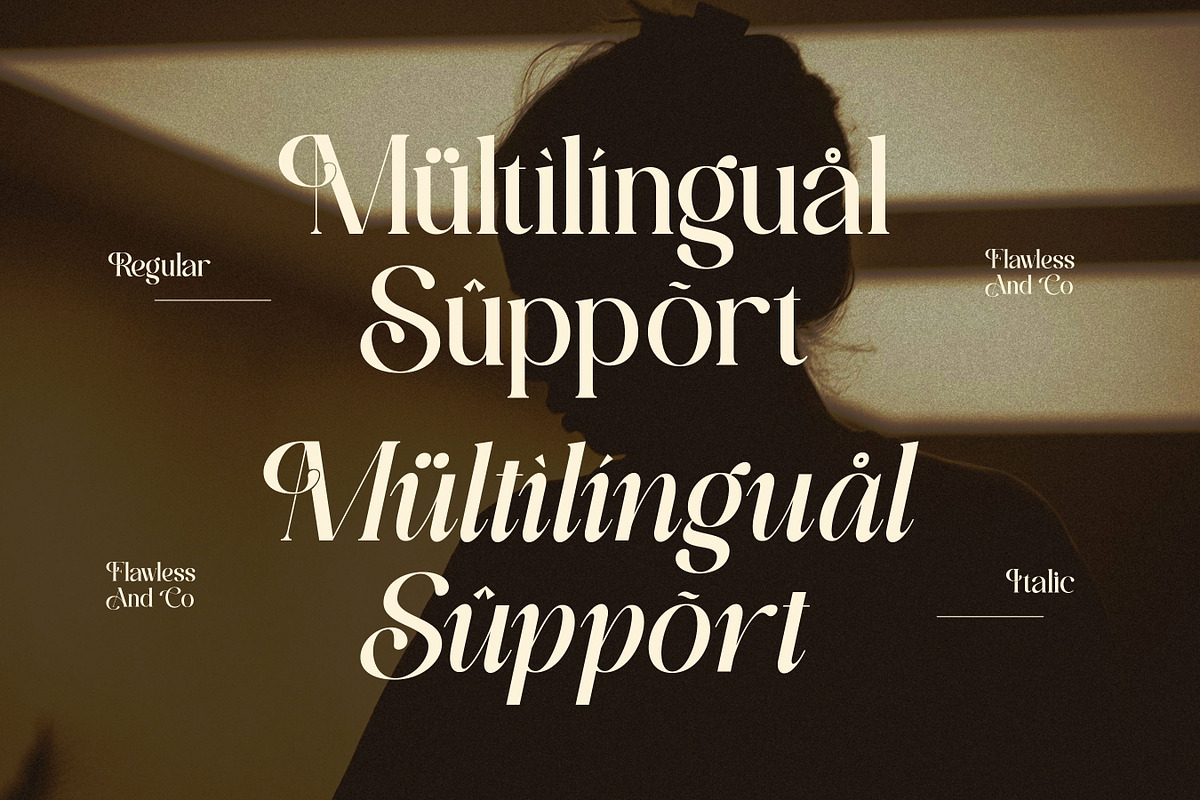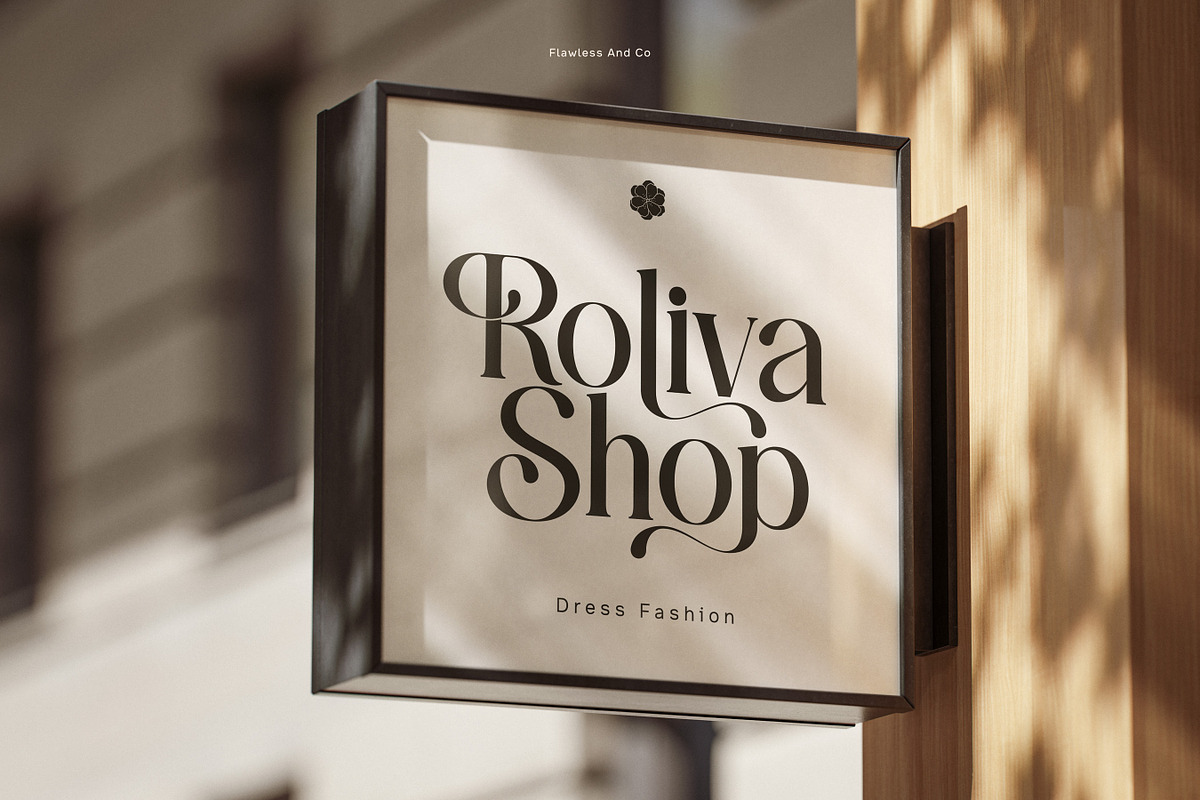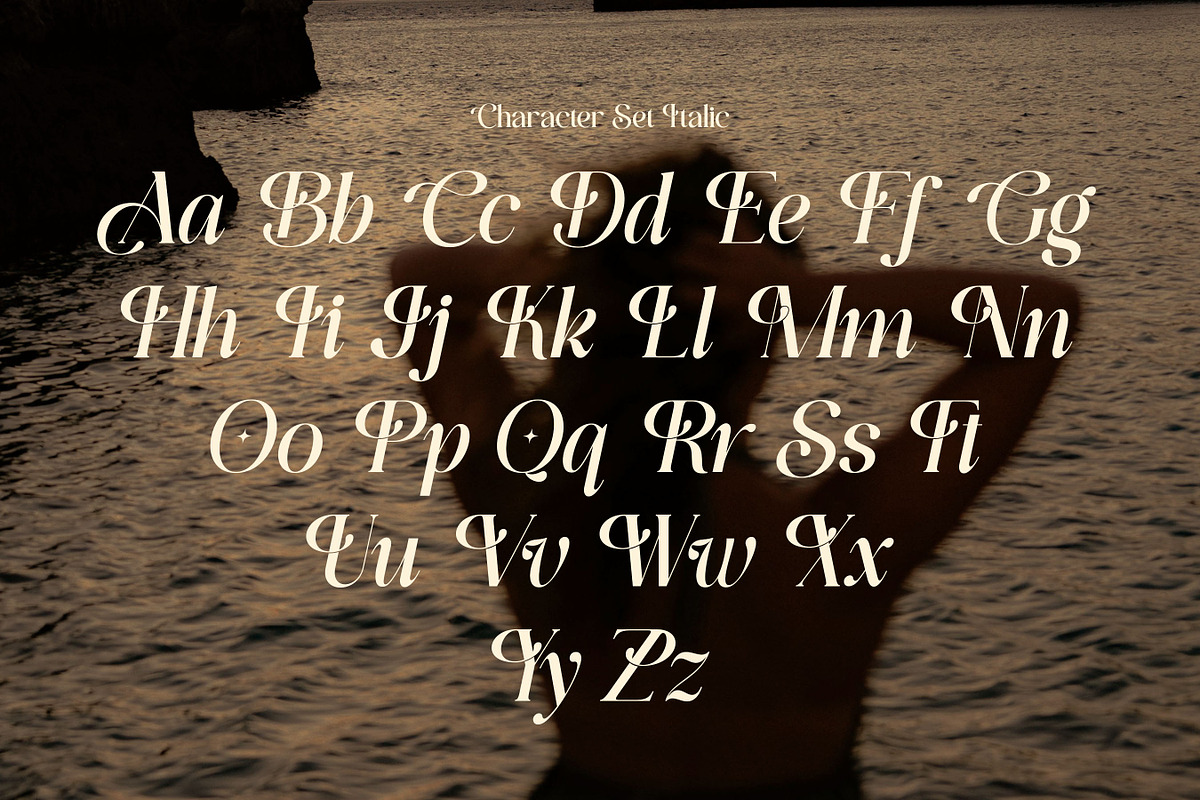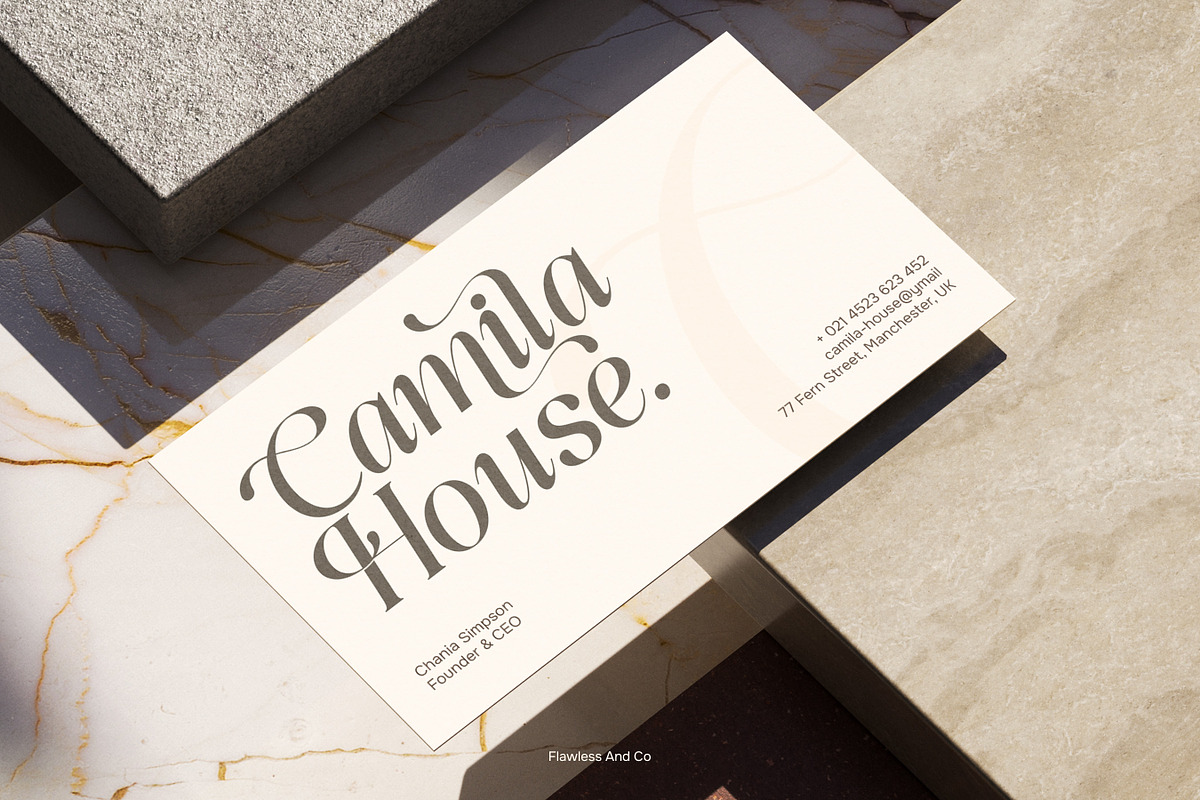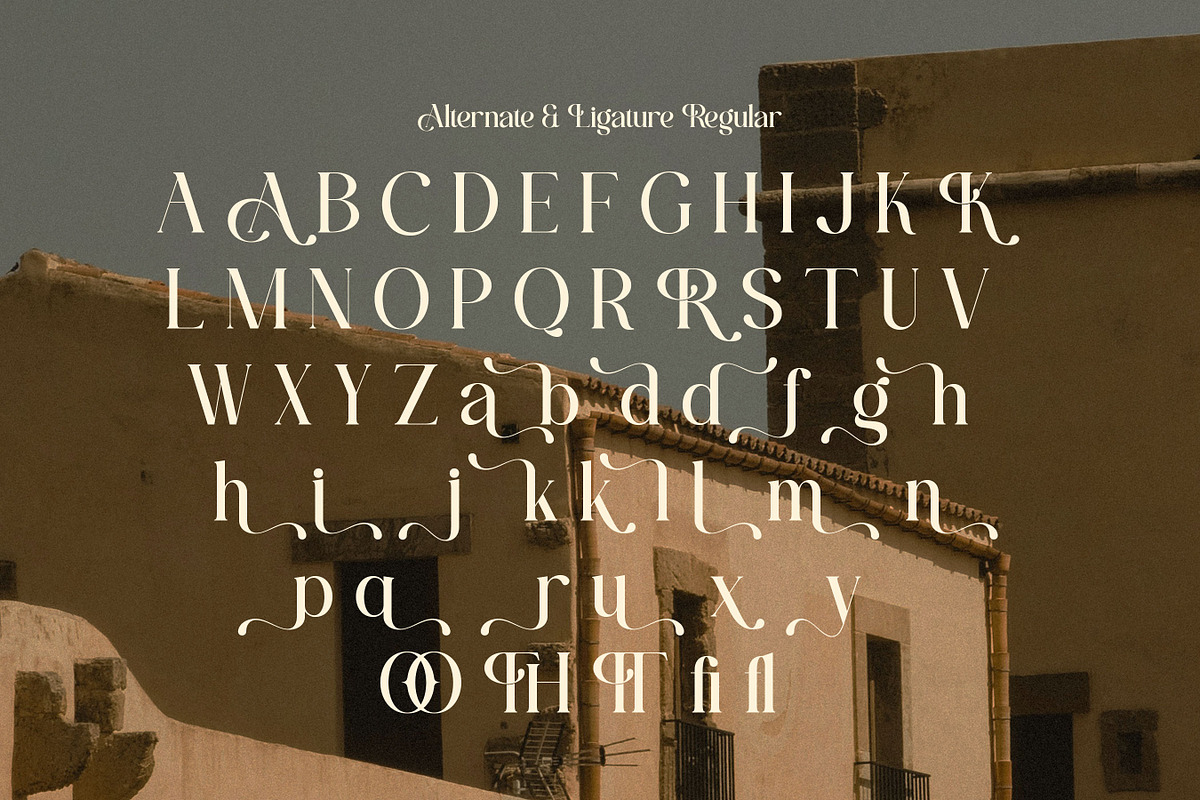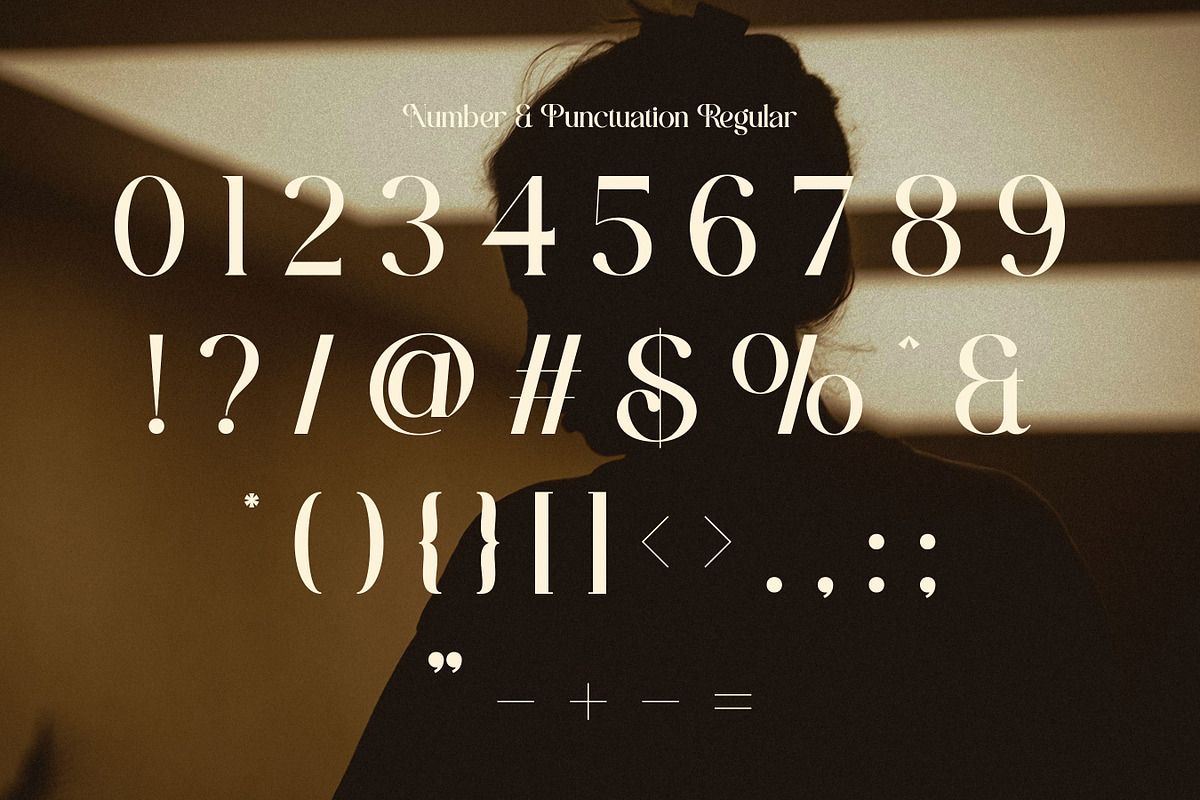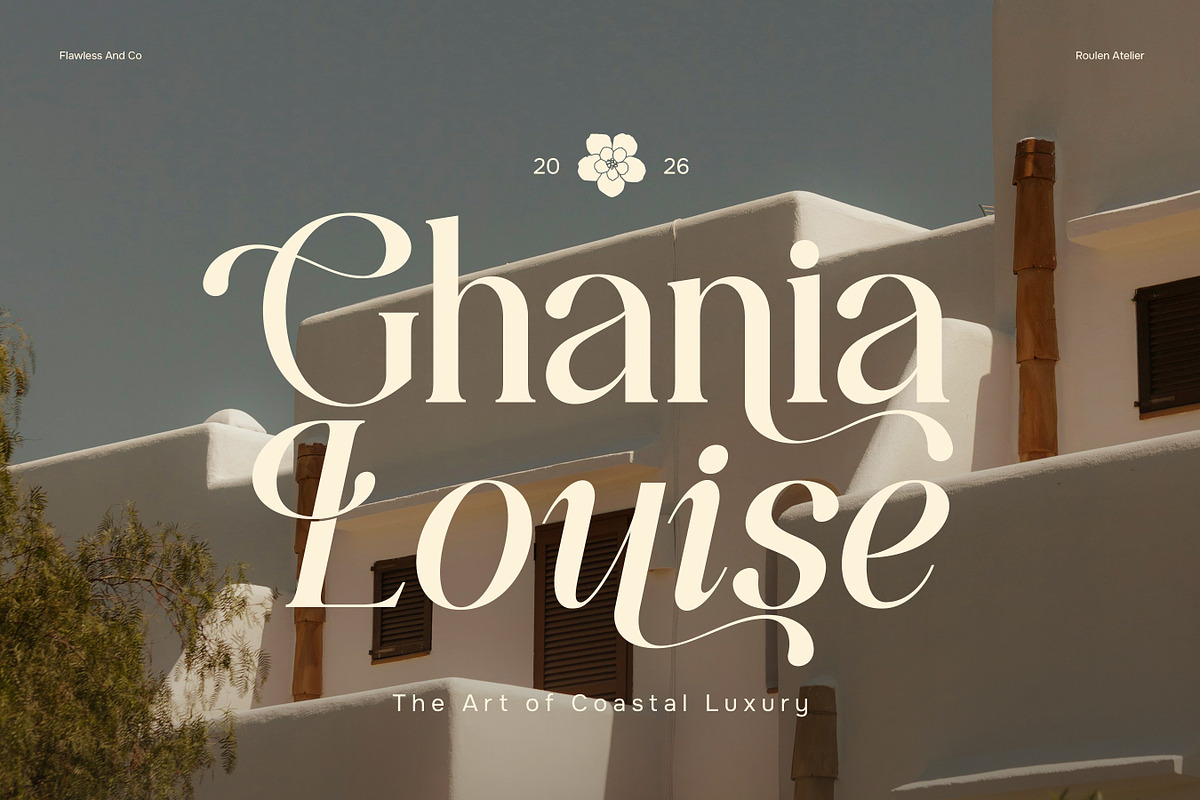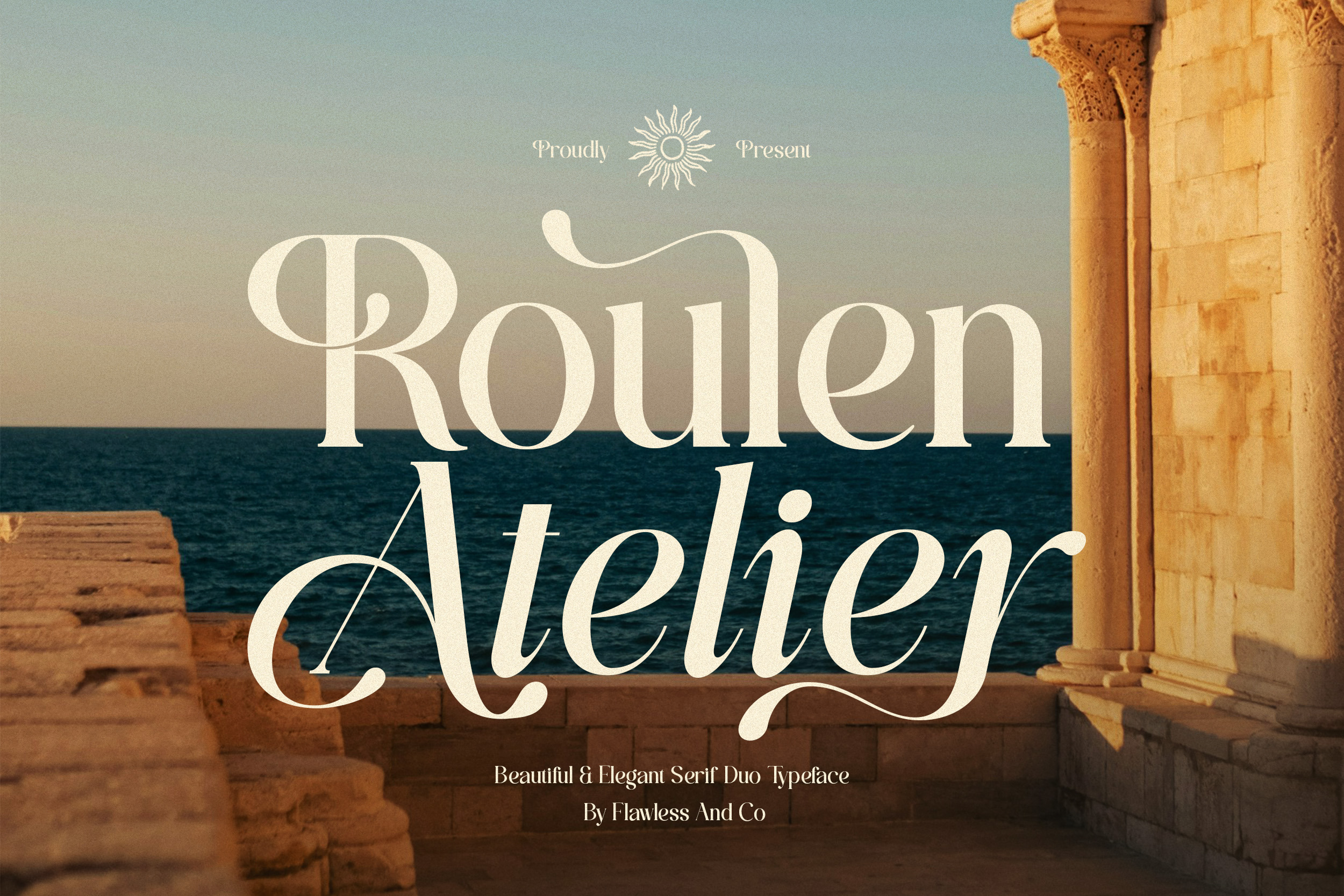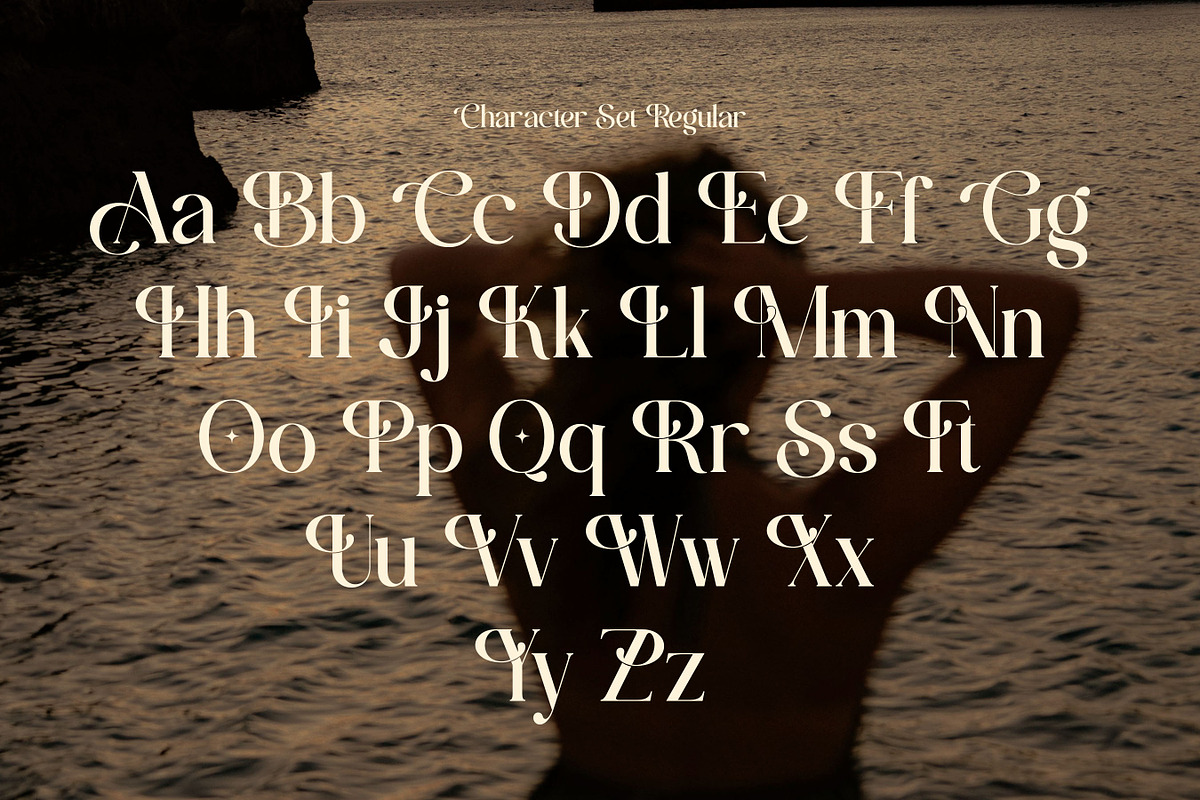
Roulen Atelier - Duo Serif Font
Roulen Atelier - Elegant Duo Serif Font
Roulen Atelier is an elegant duo serif font featuring Regular and Italic styles designed to work together across refined display typography. The Regular style provides structured and balanced letterforms, while the Italic style introduces a more fluid and expressive appearance for emphasis and decorative compositions.
The combination of two complementary styles gives Roulen Atelier flexibility for creating typographic hierarchy within a single design. The Regular style works well for headings, brand names, and supporting text, while the Italic style can be used for highlights, secondary wording, and elegant accents.
Roulen Atelier is suitable for designs that require a refined serif character with a combination of structured and flowing forms. Its duo styling works across branding, editorial layouts, fashion graphics, invitations, packaging, and other contemporary design projects.
Altrenates & Ligatures
Who Should Use Roulen Atelier?
Roulen Atelier is suitable for graphic designers, branding professionals, creative studios, fashion brands, editorial designers, and businesses looking for a serif duo with Regular and Italic styles for creating structured and expressive typography.
Suitable For:
Brand Identity
Fashion Branding
Editorial Design
Magazine Layouts
Beauty Branding
Wedding Invitations
Stationery Design
Product Branding
Advertising
Posters & Headlines
Photography Branding
Creative Typography
Luxury-Themed Designs